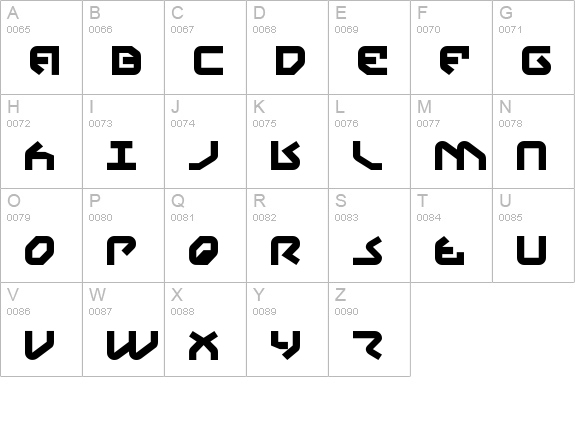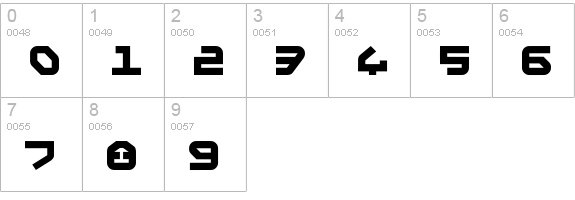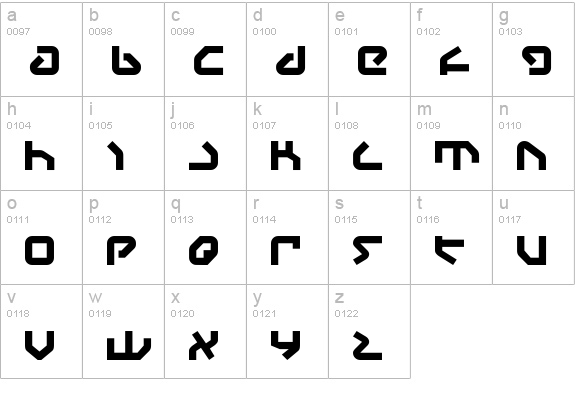
Yahren font is a stunning display typeface that exudes elegance and sophistication. With its sleek lines and modern aesthetic, Yahren font is perfect for adding a touch of class to any design project. This versatile font is suitable for a wide range of applications, from branding and advertising to editorial and web design. The best part about Yahren font? It's completely free! You can download this beautiful typeface at FontsMarket.com and use it in your projects without any cost. Don't miss out on the opportunity to enhance your designs with the timeless appeal of Yahren font. Download it today and elevate your creations to new heights of style and professionalism.